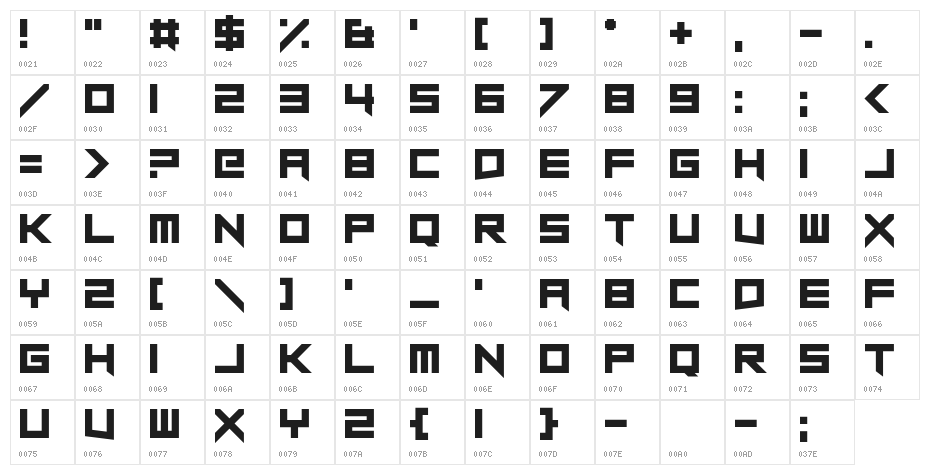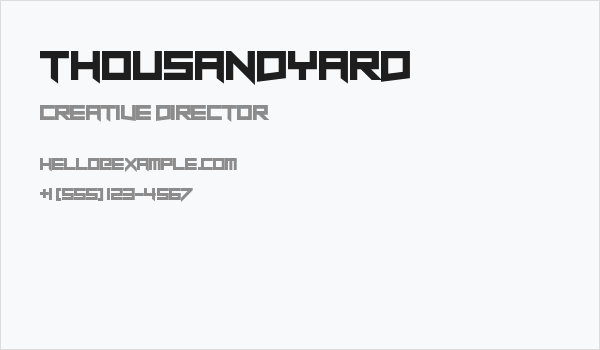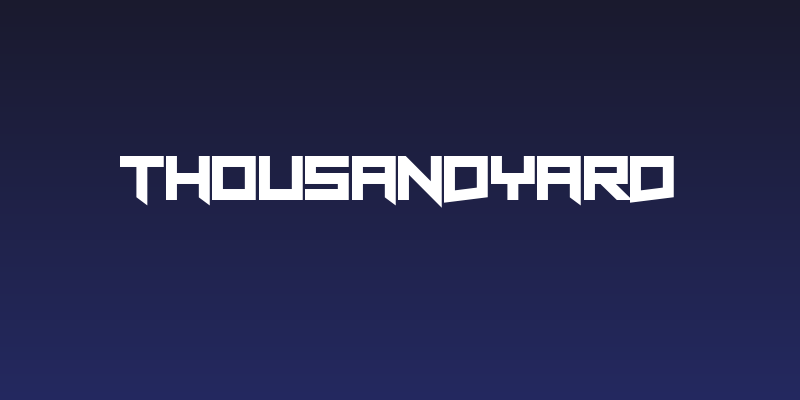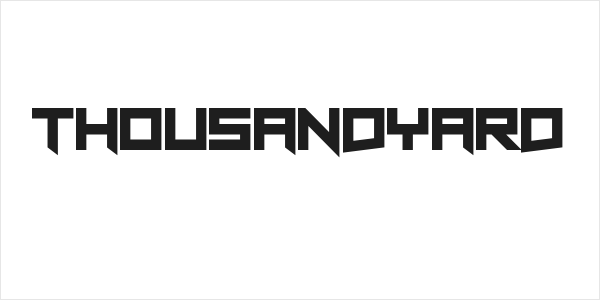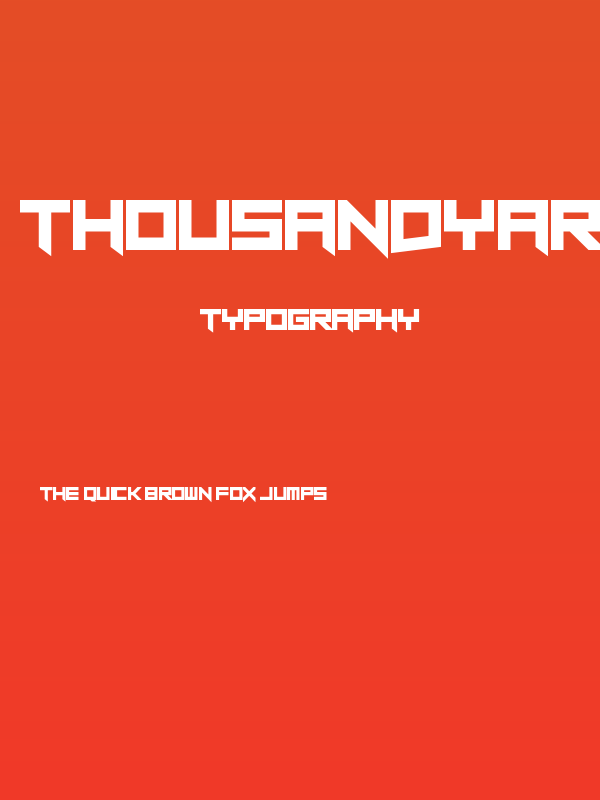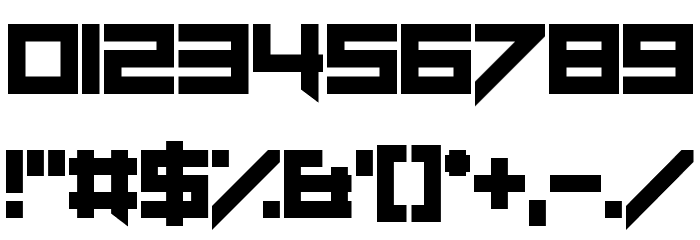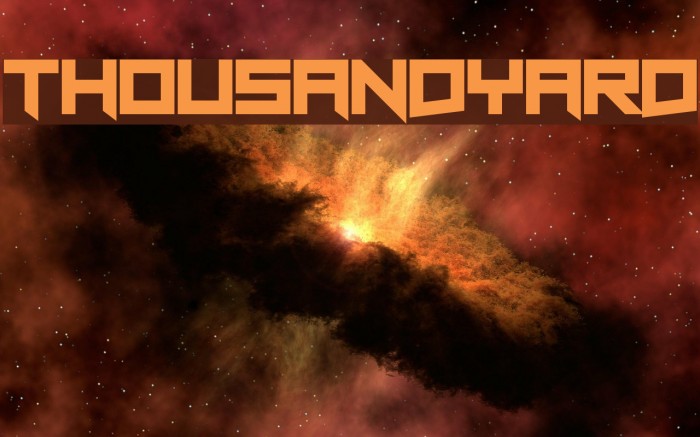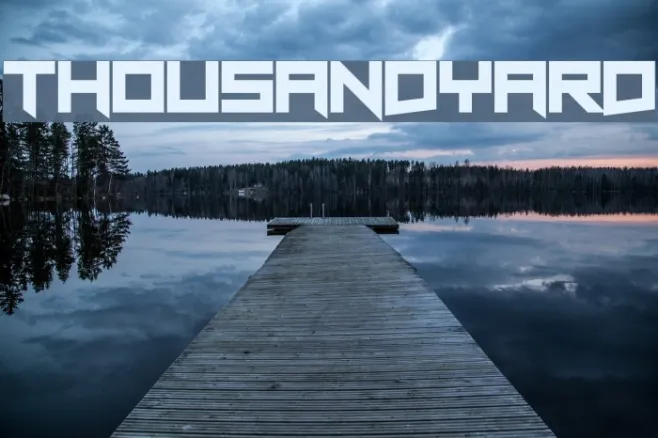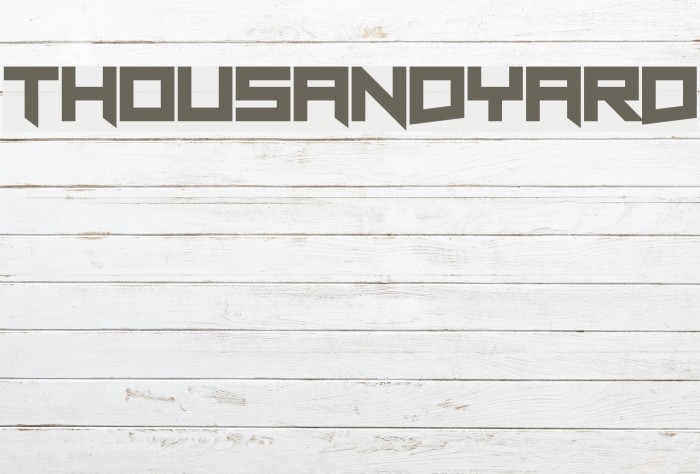
Thousandyard Font
Thousandyard Description
This font exhibits a bold and futuristic design, characterized by its geometric and angular shapes. Each letter is crafted with sharp edges and a blocky structure, giving it a distinct, modern appearance. The uppercase and lowercase letters maintain a consistent style, with a uniform height and width that enhances readability while preserving its unique aesthetic. The numerals and special characters follow the same design principles, ensuring a cohesive look across all elements. This font's striking and unconventional style makes it ideal for projects that require a strong visual impact.
| Proposed Projects | Ideal for sci-fi themed designs, video game titles, posters, and branding that requires a modern and edgy look. |